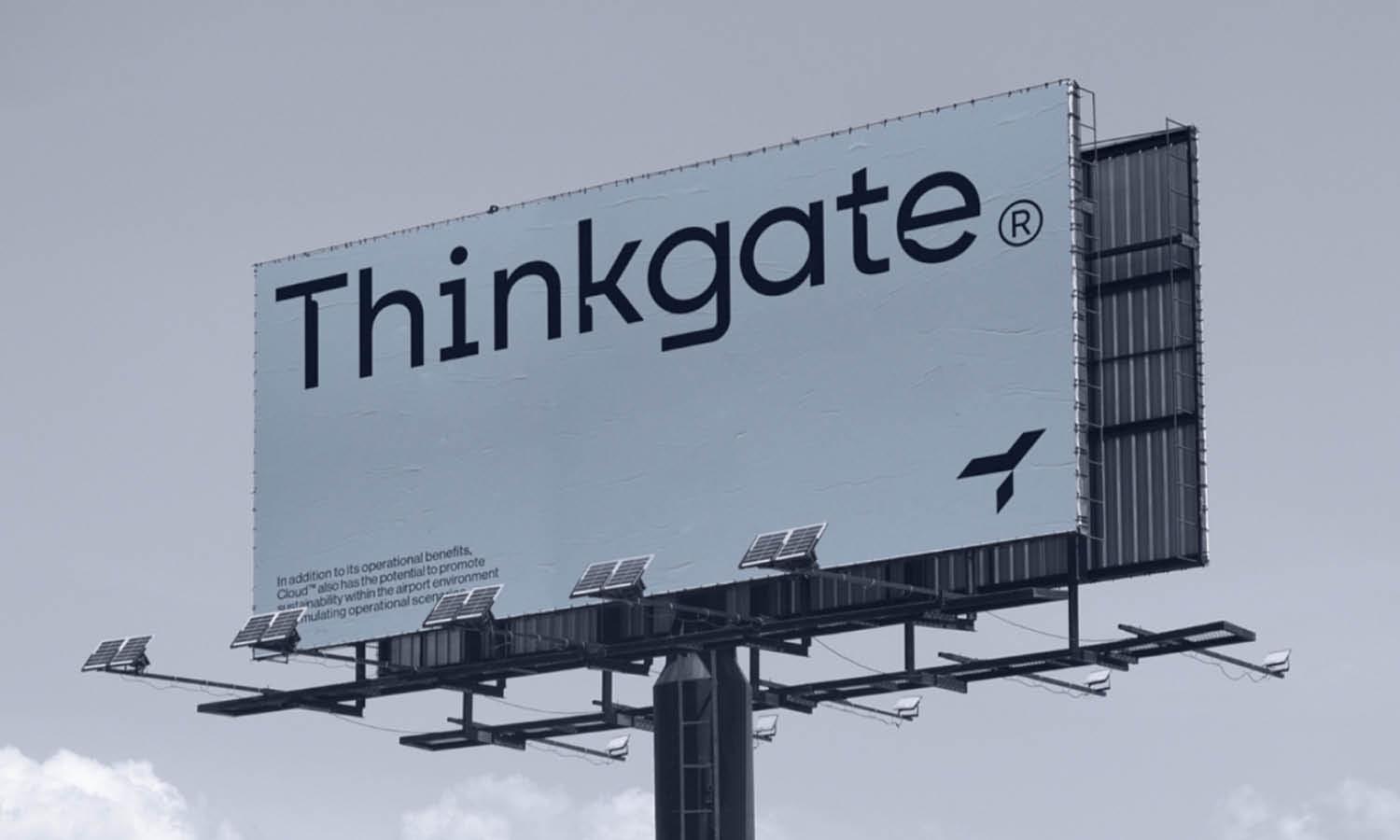
Choose A Suitable Font For Your Logo Designs
Choosing a font for a logo can seem simple at first, but typography decisions often have a lasting impact on how a brand is recognized and remembered. A logo may include colors, symbols, and layouts, yet the typeface frequently becomes one of the strongest visual elements people associate with a company. The right font can communicate professionalism, creativity, luxury, friendliness, or innovation before a single word is read. This is why logo typography deserves careful consideration. A font should do more than look attractive on a design board. It needs to support the brand's personality, remain readable across different applications, and continue working effectively as the business grows. Selecting a typeface without considering these factors can lead to a logo that feels disconnected from the brand or becomes difficult to use in real-world situations. If you are choosing a font for a logo, understanding how typography influences perception will help you make stronger design decisions.
Why Logo Typography Matters More Than Many Designers Realize
A well-chosen typeface also contributes to consistency across a brand's visual ecosystem. When customers repeatedly encounter the same typography on websites, advertisements, packaging, and social media content, familiarity begins to develop. Over time, that familiarity can strengthen recognition even when the logo is viewed briefly.
How Fonts Shape First Impressions
People form opinions quickly when they encounter a brand for the first time. The font used in a logo immediately influences those impressions. A bold geometric typeface may suggest confidence and modernity, while a classic serif font can communicate tradition and reliability. Typography acts as a visual voice. Before customers interact with products or services, they often interpret the personality of a business through its logo. This makes font selection one of the most influential design choices in the branding process.
The Connection Between Typography And Brand Personality
Every typeface carries certain visual associations. Clean sans serif fonts often feel contemporary and efficient. Elegant scripts can suggest sophistication or craftsmanship. Strong slab serifs may communicate stability and authority. Effective logo typography aligns these characteristics with the intended brand identity. The goal is not simply choosing a beautiful font but selecting one that reinforces the message the business wants to convey.
Why Typography Often Becomes The Most Memorable Part Of A Logo
Many successful logos rely heavily on typography rather than complex graphics. In wordmarks especially, the font itself becomes the visual identity. Distinctive letterforms help people recognize and remember a brand across websites, packaging, advertisements, and social media. Because typography frequently carries so much responsibility, it deserves thoughtful evaluation rather than a quick selection from a font library.
Understand The Message Your Logo Needs To Communicate
Another useful exercise is creating a list of adjectives that describe how the brand should feel. For example, words such as trustworthy, innovative, elegant, playful, bold, or approachable can provide a clearer direction when comparing typefaces. When multiple stakeholders are involved in a project, these descriptive terms can also help reduce subjective discussions and keep font selection aligned with business goals.
Identifying Your Brand's Core Personality
Before reviewing fonts, define the qualities that describe the brand. Is it innovative, approachable, premium, artistic, dependable, or energetic? These characteristics should guide typography decisions from the beginning. Without a clear understanding of brand personality, font selection often becomes subjective and inconsistent.
Matching Visual Tone With Audience Expectations
Different audiences respond to different visual styles. A technology startup targeting young professionals may benefit from clean, modern typography. A luxury boutique might require more refined letterforms that communicate exclusivity. Considering audience expectations helps narrow typography choices while maintaining relevance.
Avoiding Fonts That Send Mixed Signals
Problems arise when typography communicates something different from the brand's intended message. An overly playful font may weaken a serious financial brand. A rigid corporate typeface may feel disconnected from a creative studio.
The Main Font Categories Used In Logo Typography
It is important to remember that font categories are broad groups rather than strict rules. Not every serif font feels traditional, and not every sans serif font feels modern in the same way. Designers should evaluate the specific characteristics of each typeface rather than relying solely on its category.
Serif Fonts
Serif fonts include small decorative strokes attached to letterforms. They are commonly associated with tradition, credibility, sophistication, and heritage. Many law firms, universities, publishers, and luxury brands use serif typography because it projects authority and stability. Depending on the specific typeface, serif fonts can feel either classic or contemporary.
Sans Serif Fonts
Sans serif fonts remove decorative strokes and emphasize simplicity. Their clean appearance makes them highly versatile across digital and print environments. Modern brands frequently choose sans serif typefaces because they communicate clarity, efficiency, and innovation. Their readability also makes them effective in responsive logo systems and small-scale applications.
Understanding the industry and target audience also plays a significant role in font selection. A fun, handwritten font may work well for a children’s brand but feel out of place in a corporate setting. Consistency is key—your chosen font should integrate seamlessly with your overall branding, including website design, packaging, and marketing materials.